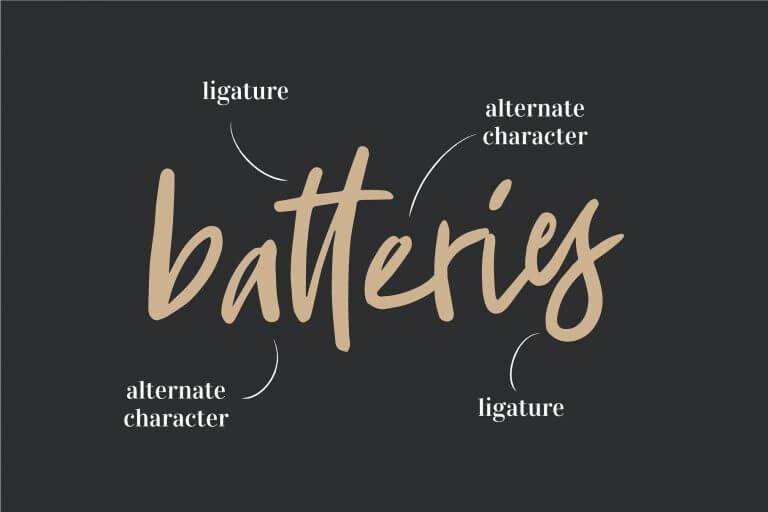
Aescudos Handwritten Font
Aescudos, a brush and script typeface, is now accessible. Karen Dunn created it and shared it. The beautiful font was uploaded on April 11, 2019. This is a premium font that is sold on CreativeMarket, but it was so good that it is available for free today. The typeface has a variety of alternative characters and ligatures that can be accessed through Adobe Illustrator, InDesign, and Photoshop. Uppercase, lowercase, Numeric, and some Special and Alternate characters are all included in the typeface.
The typeface is a perfect choice for any type of fashion magazine, whether it’s for the headline, subheading, or body. In addition, the font can be utilized in any form of fashion brand poster. The typeface has a girly feel, making it ideal for use with any cosmetics brand. This typeface can also be used to create elegant logos for your business.
| Name | Aescudos Handwritten Font |
| Style | Script |
| Designer | Karen Dunn |